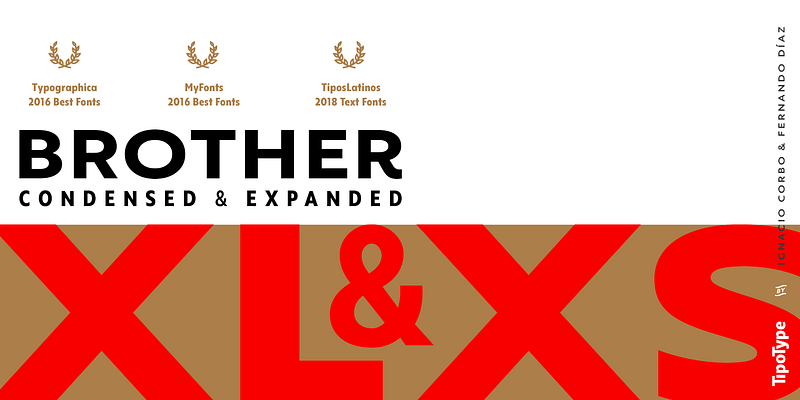
Brother XS&XL Font Free Download
Brother XS&XL Font Free Download is a dynamic and versatile sans-serif typeface family that offers two striking extremes—extra small (XS) and extra large (XL). With a sleek, modern design and clean lines, Brother XS&XL is built for maximum impact in both minimalist and bold display settings. It's ideal for branding, editorial layouts, digital interfaces, posters, and motion graphics.
This font family is designed to offer a wide typographic range while maintaining consistency in style. Whether you're working with tight, compact layouts or expansive headlines, Brother XS&XL delivers high readability and a modern aesthetic. It includes multiple weights, full punctuation, and multilingual support, making it perfect for global design applications.